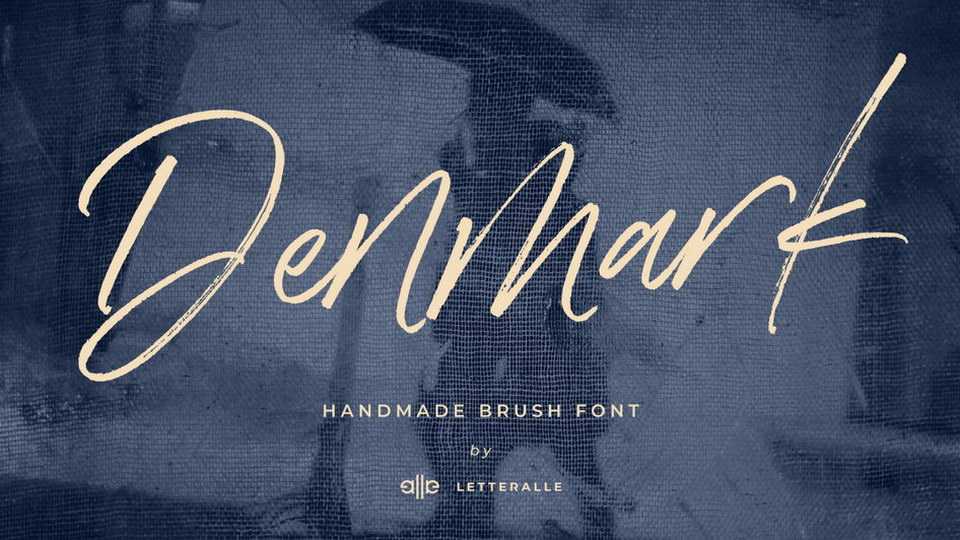
Download Denmark script, a brush font that is modern and elegant whith the imperfection forms bringing a natural impression. Denmark font is suitable for your design needs.
Designer: Letteralle Studio